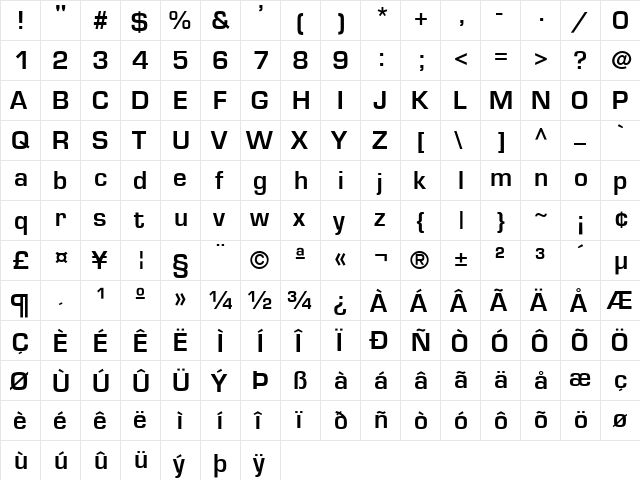
Euromode Bold
Design Context for Euromode Typeface
Euromode offers clean, dependable letterforms without strong stylistic allegiance, making it a practical choice for designers who need flexibility. Its bold stroke weight gives it real presence on the page.